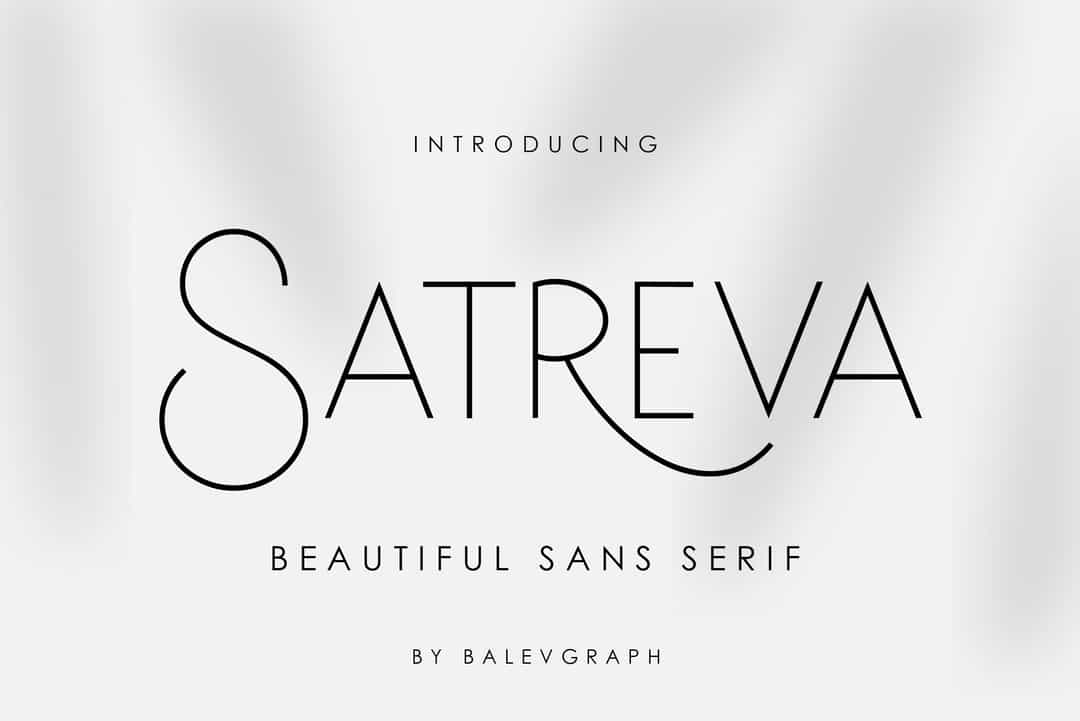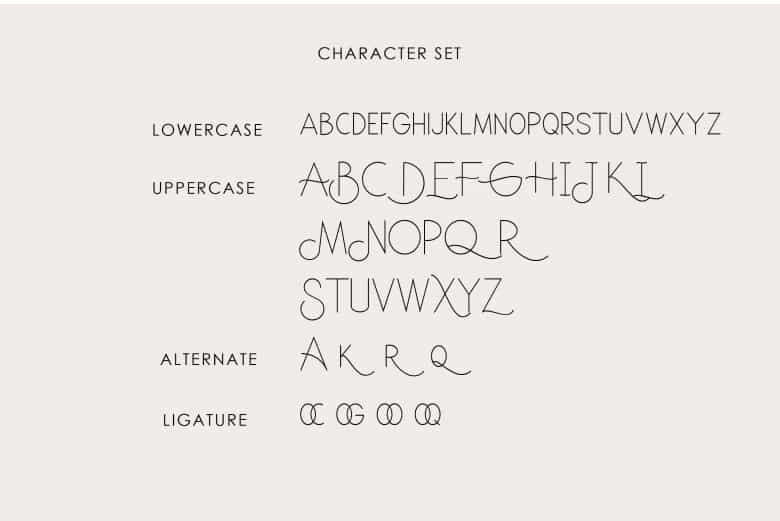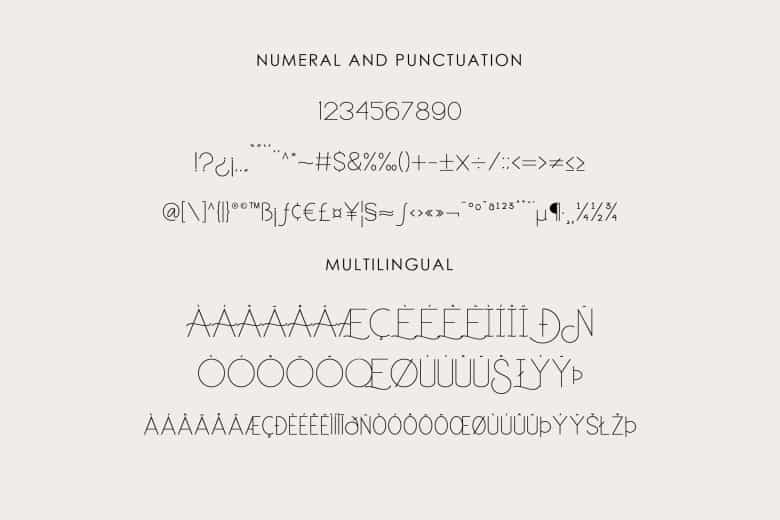
Satreva is an elegant yet understated sans serif font created by Balevgraph Studio that works beautifully across a range of designs. Use it for creative inspiration and watch how well it stands out!